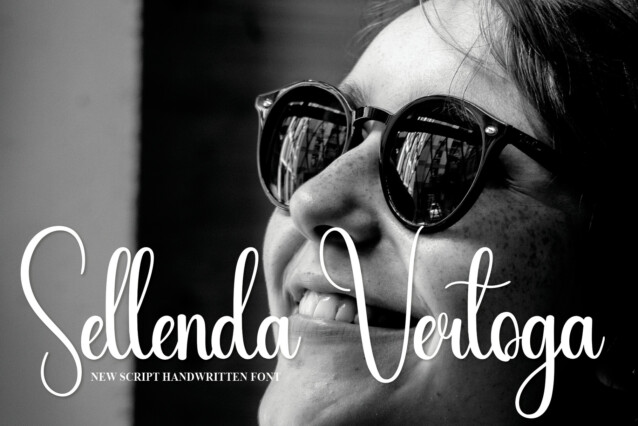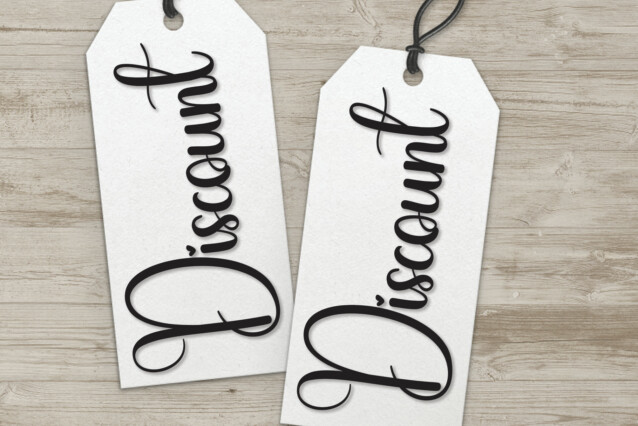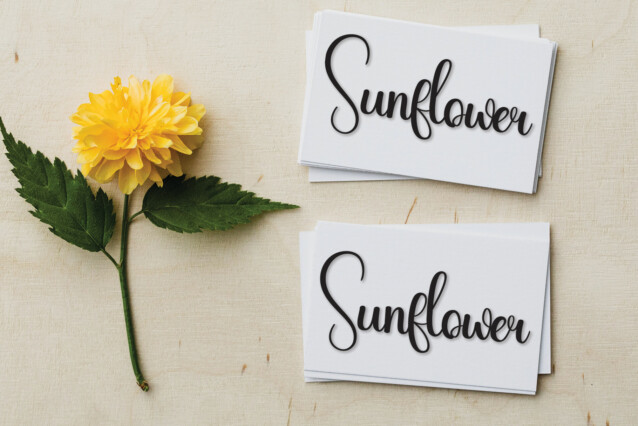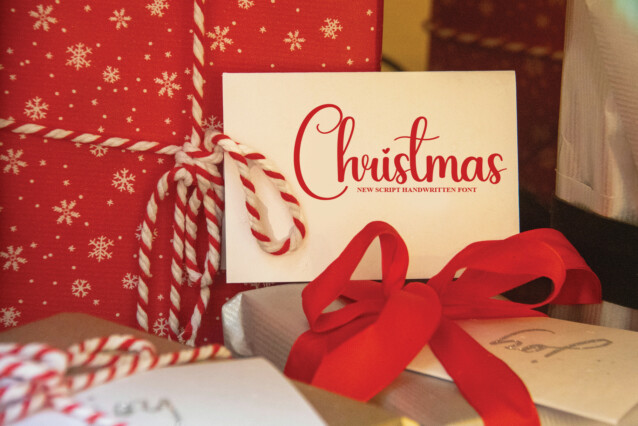
Simple Writing Script Font
Simple Writing Script Font is a cool and relaxed handwritten font. This versatile font has a wide spectrum of applications ranging from greeting cards to headlines and is guaranteed to add a neat and natural feel to your next project!